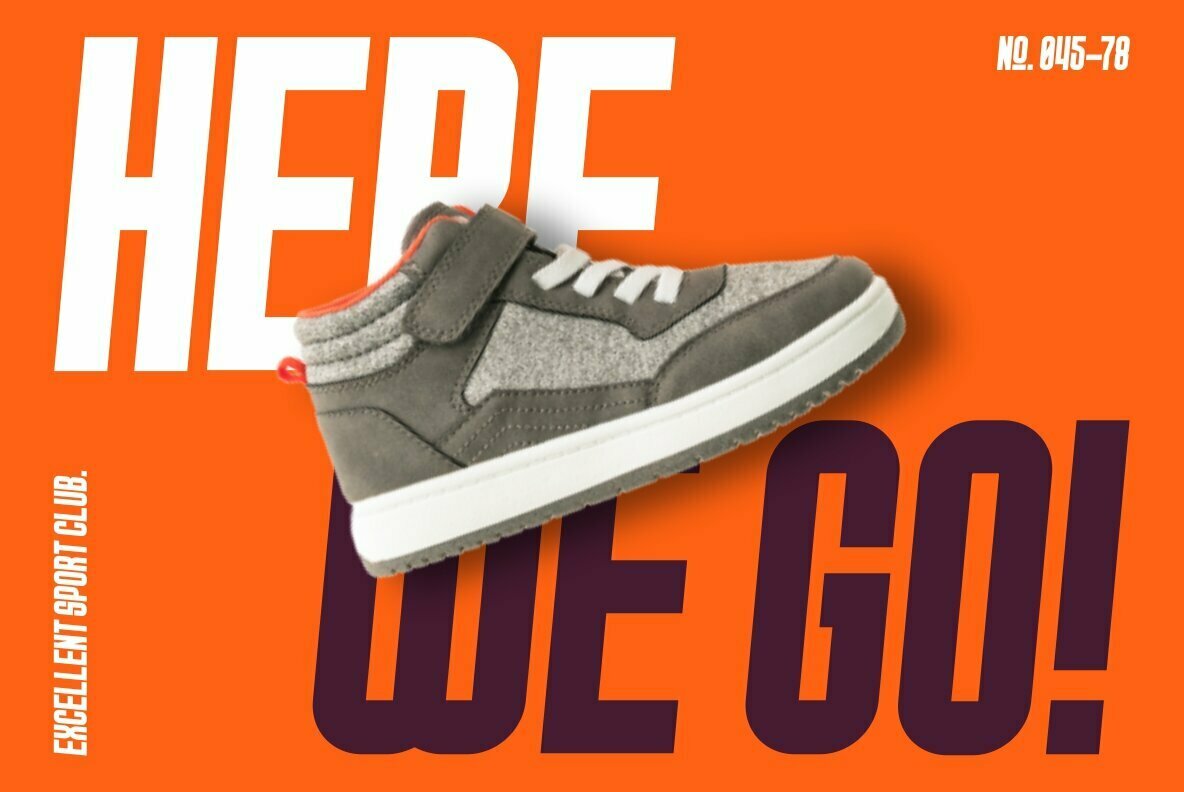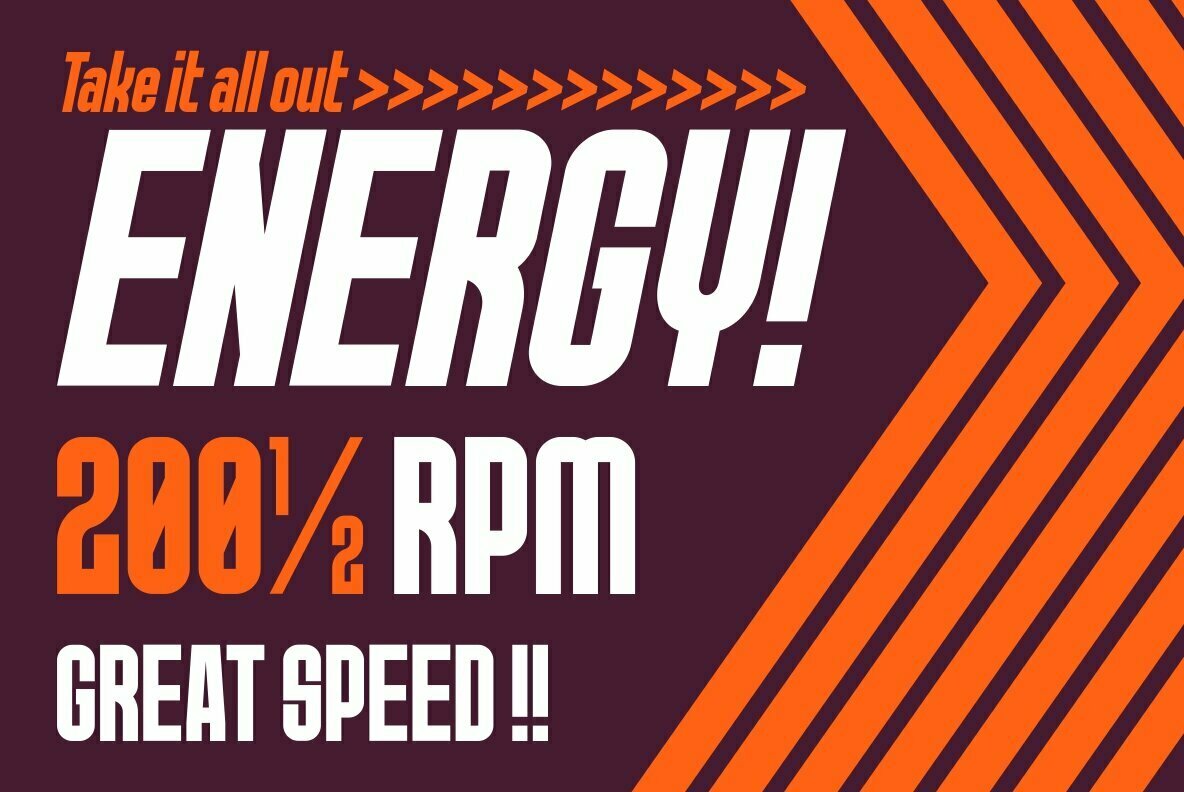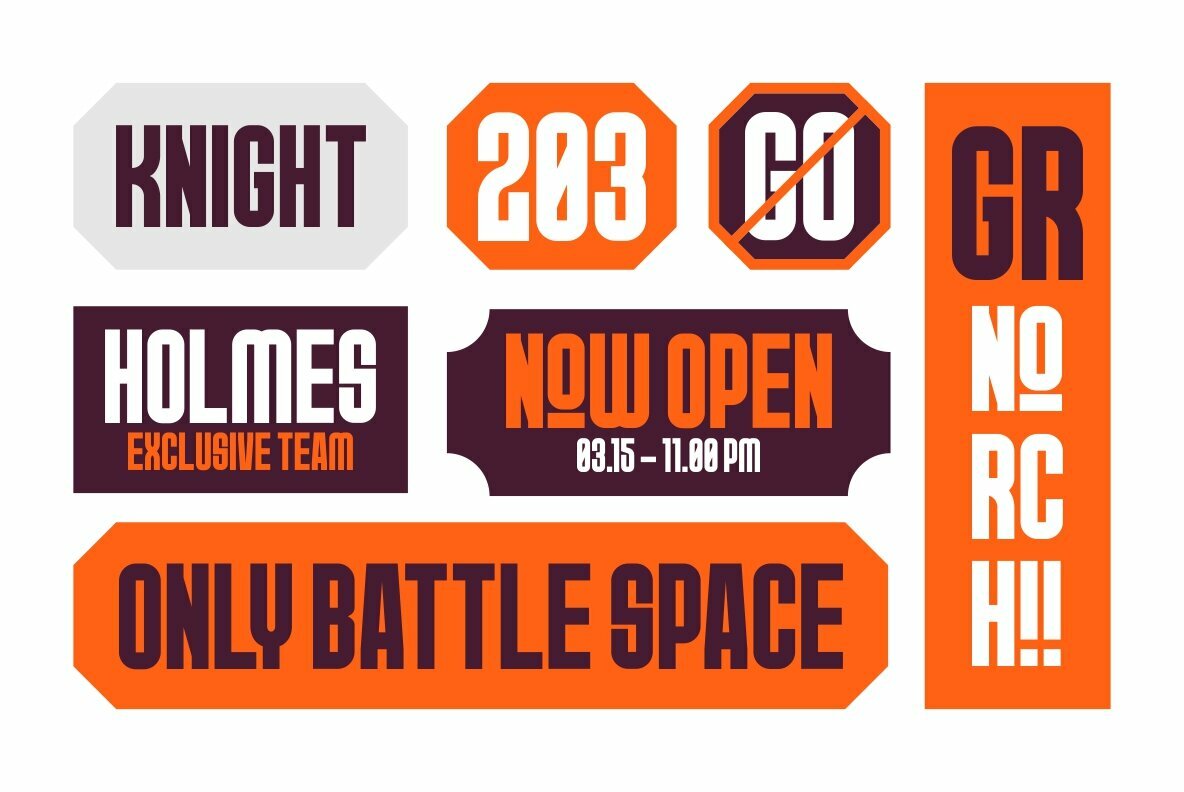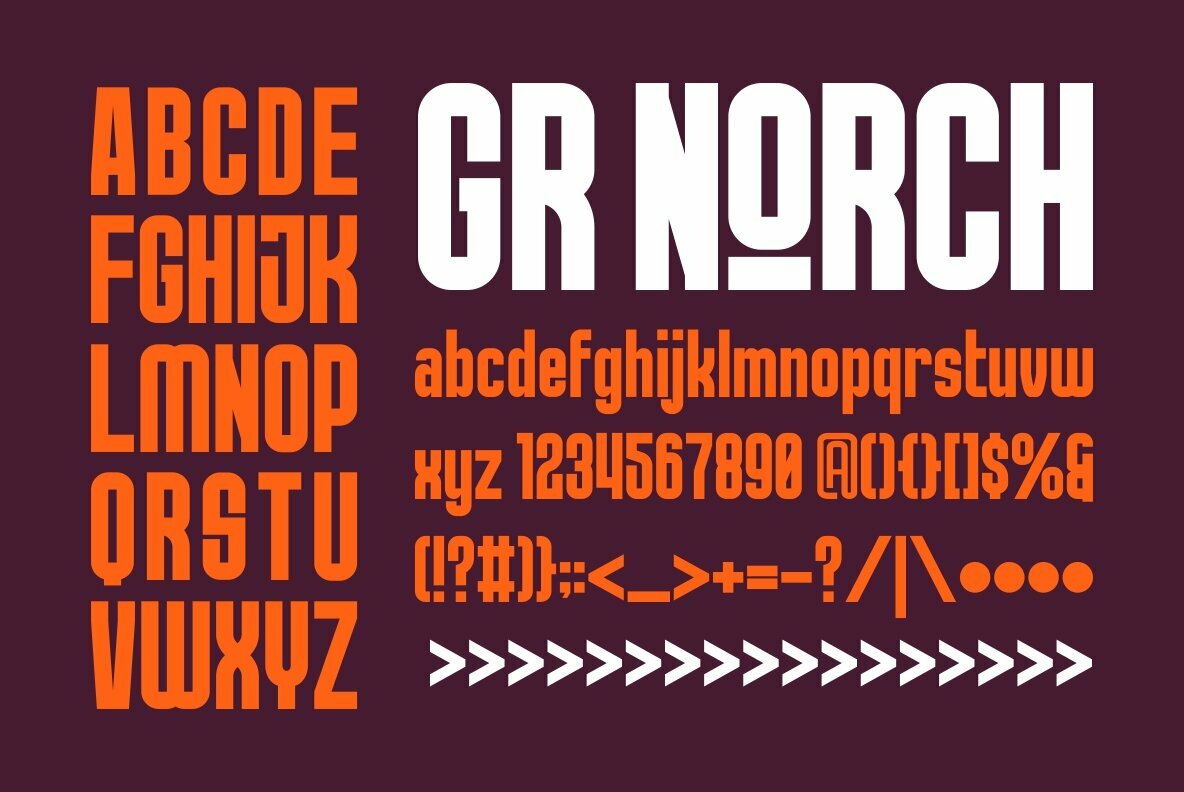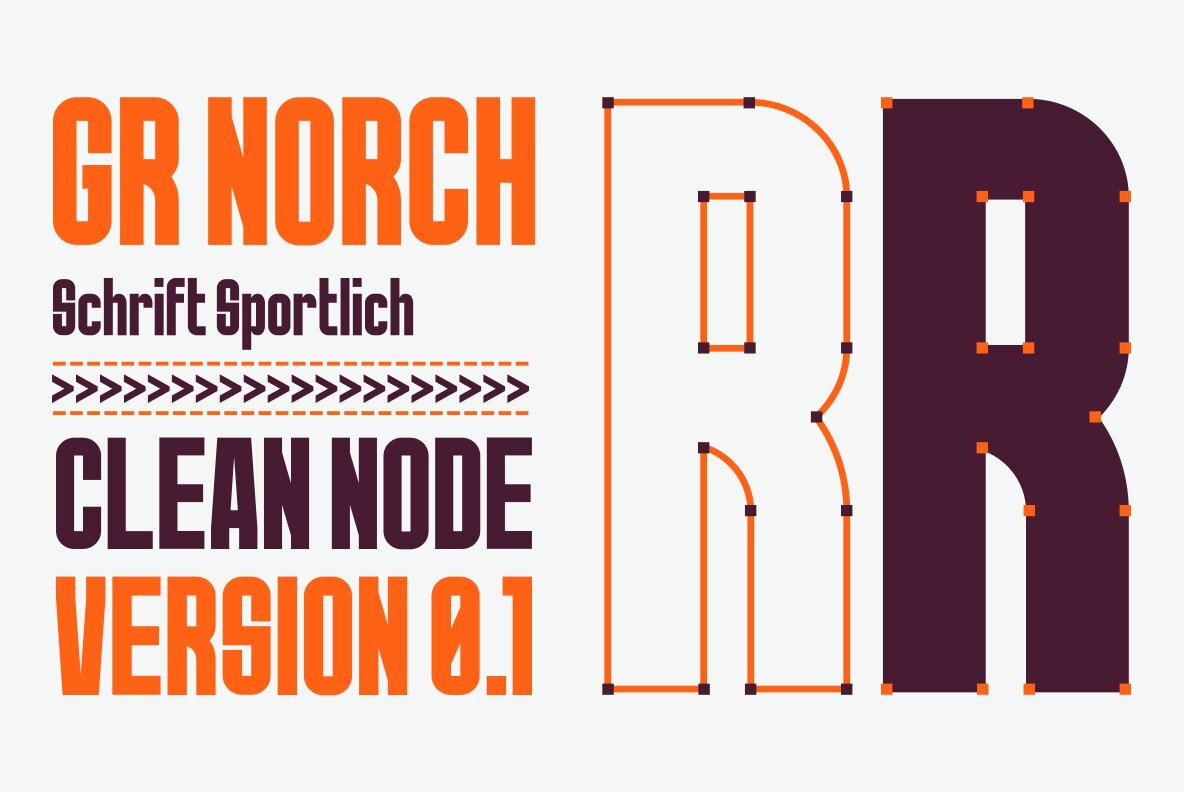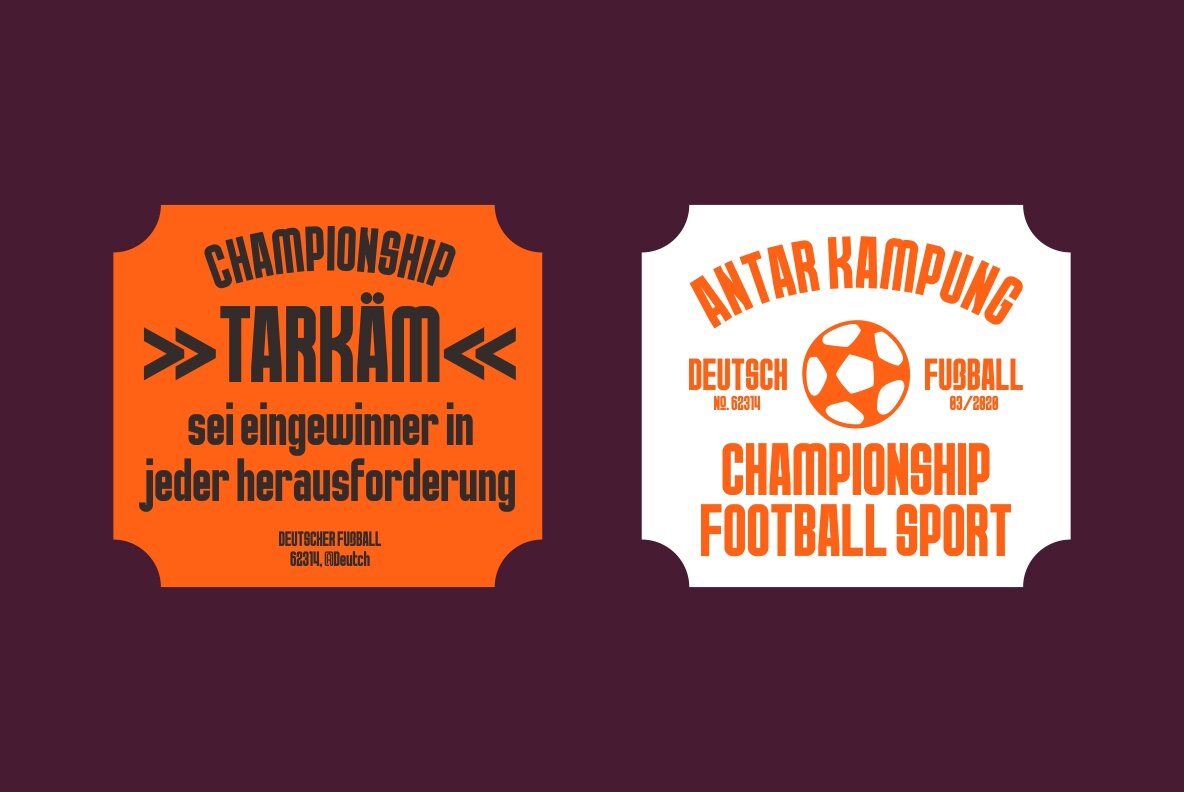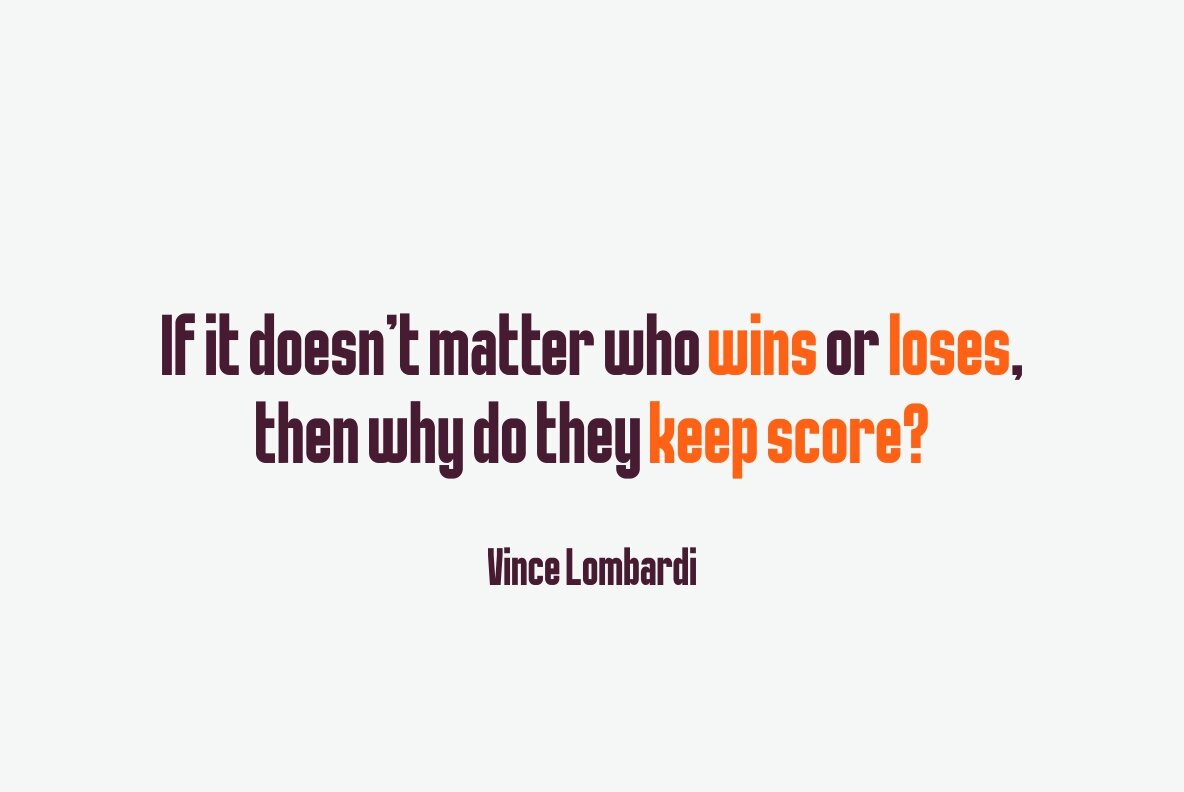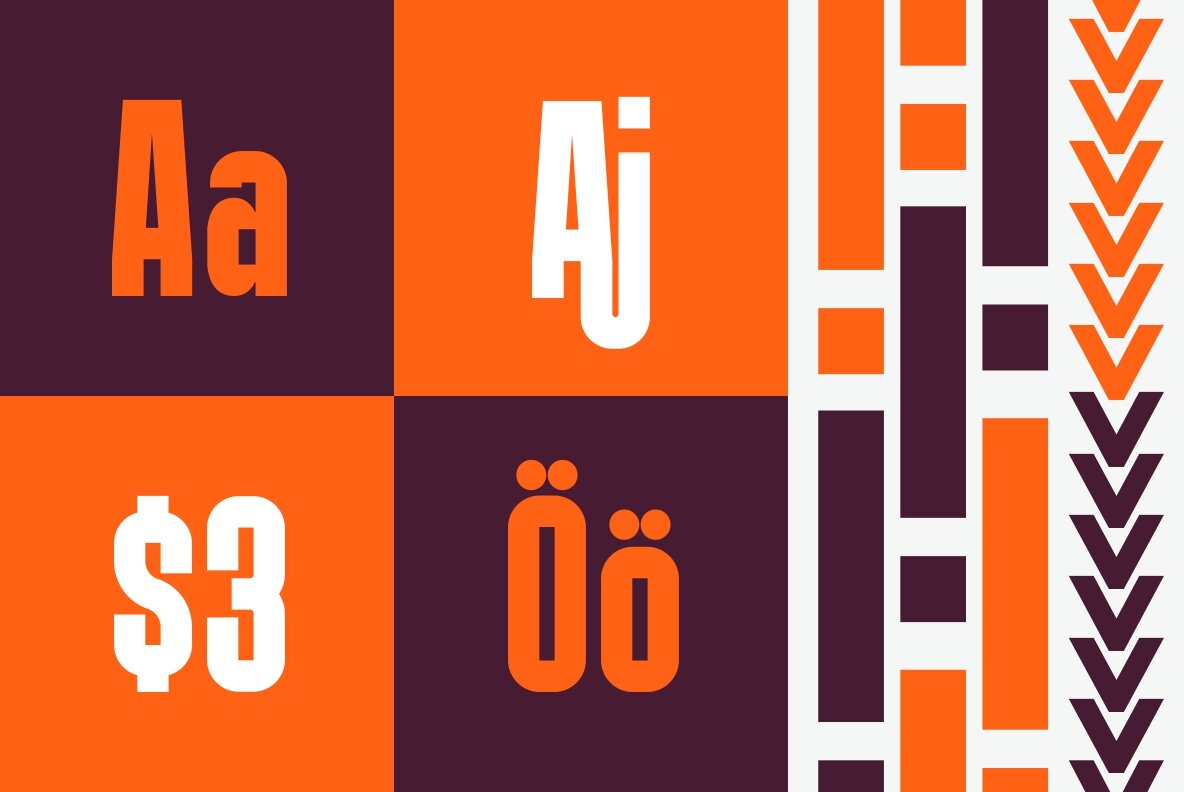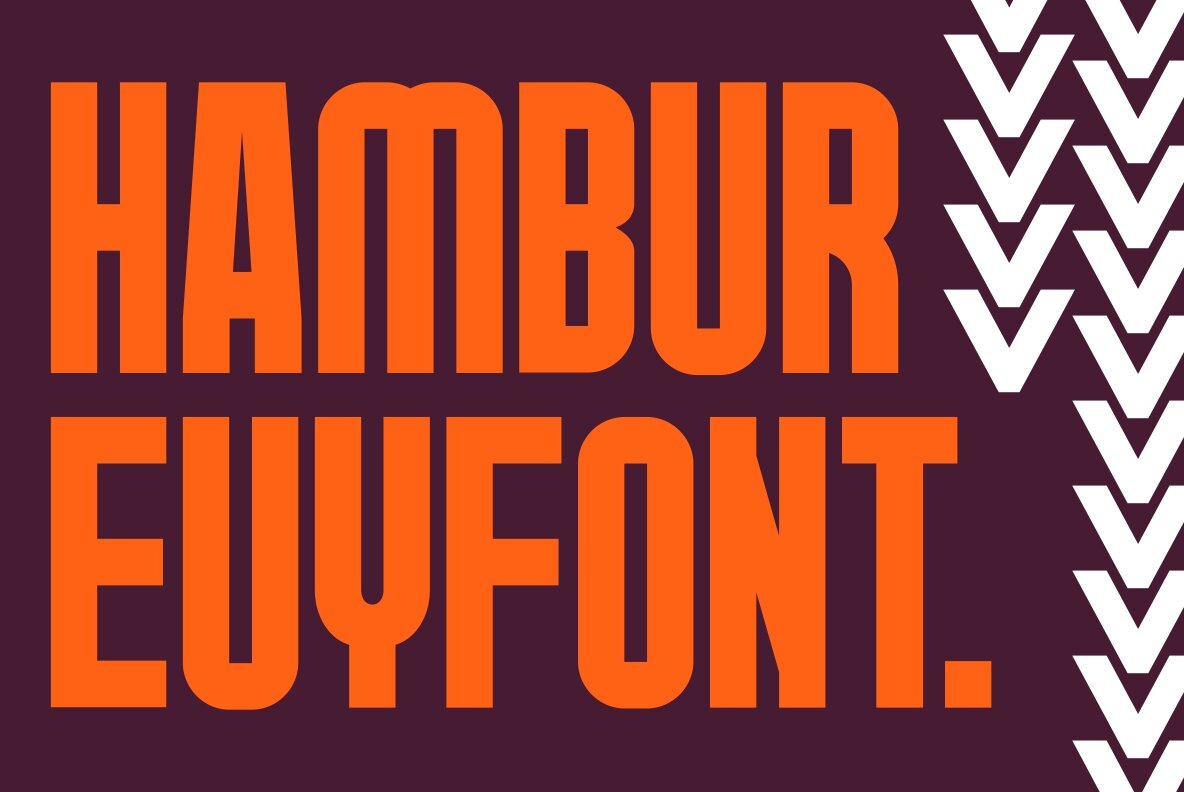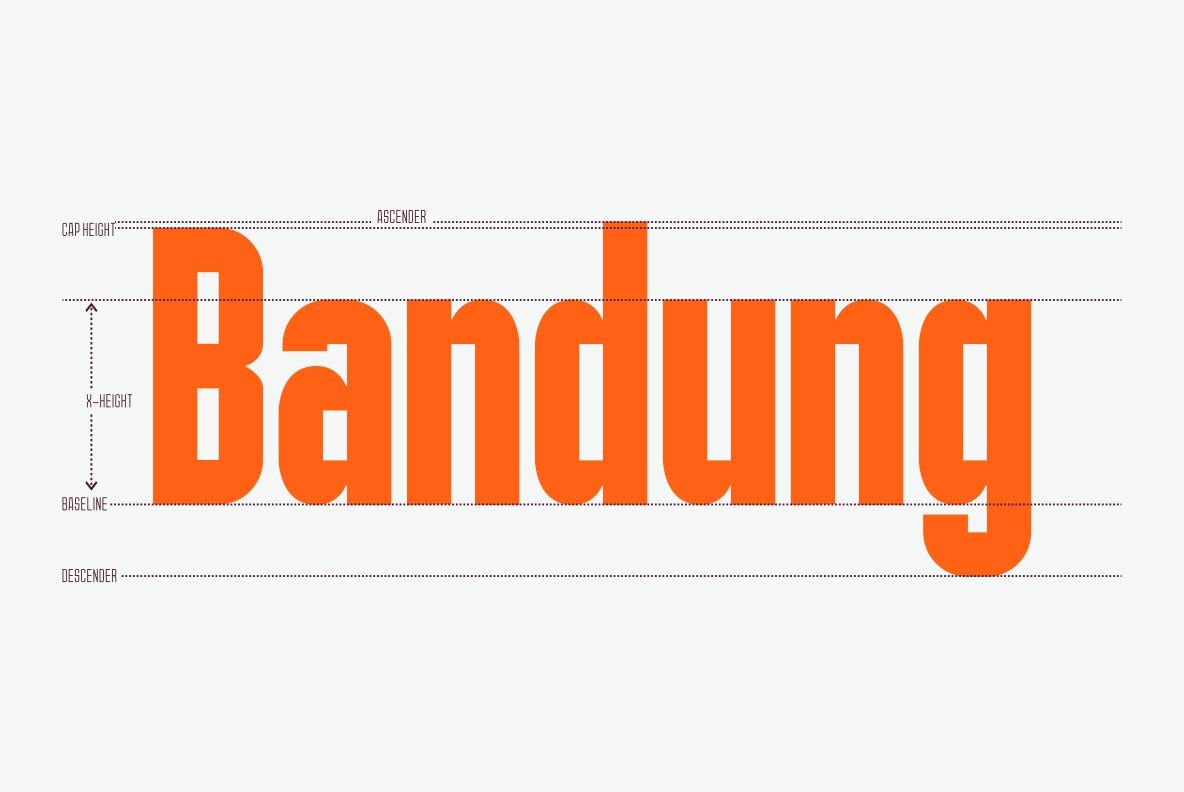
GR NORCH: A Geometric Font for Sports Design
The GR NORCH font embodies the dynamic energy of sports through its robust and modern geometric style. Perfectly suited for football, basketball, athletics, and beyond, it brings a strong and distinctive character to any design. Inspired by contemporary trends, this font maintains a striking presence with clean nodes that ensure clarity and impact.
• Extensive Glyph Set – Over 400 glyphs to enhance your typography projects.
• Versatile Usage – Ideal for prints, logos, posters, and t-shirts.